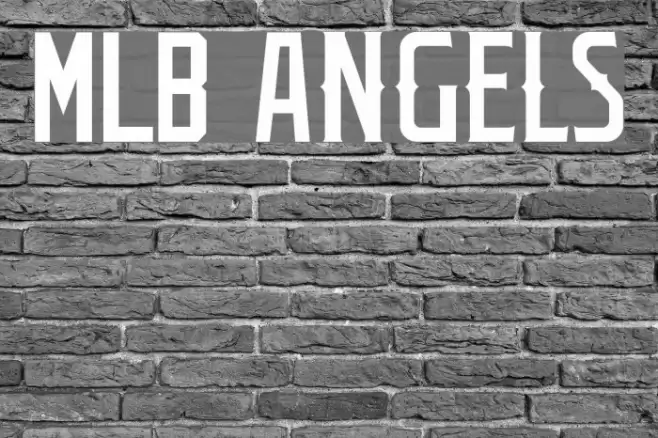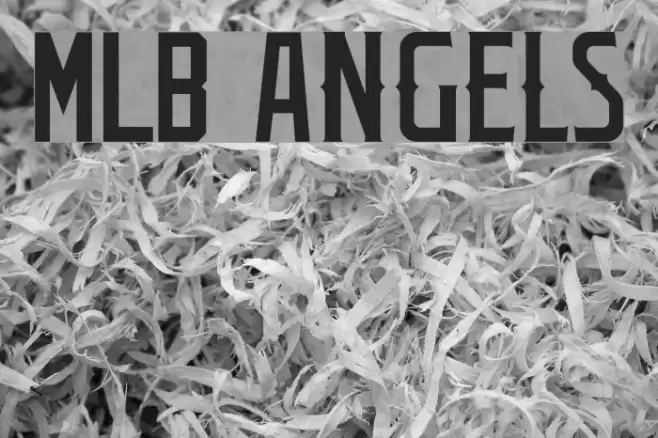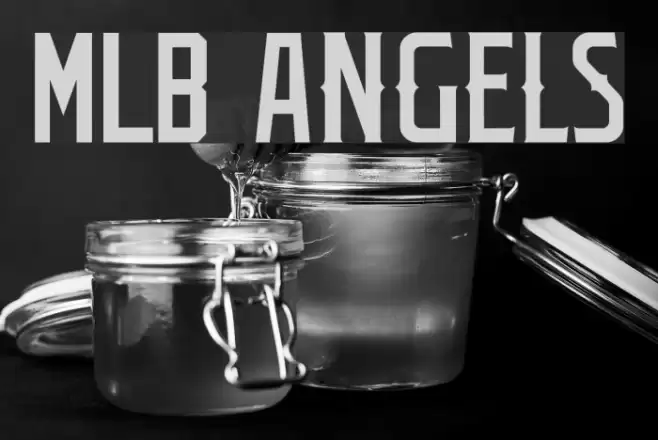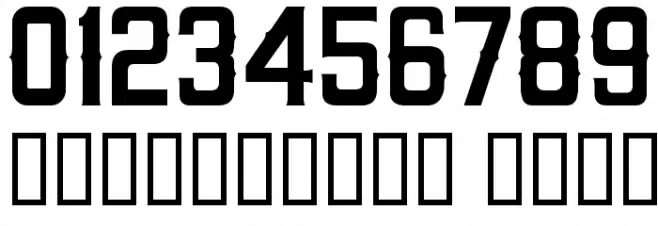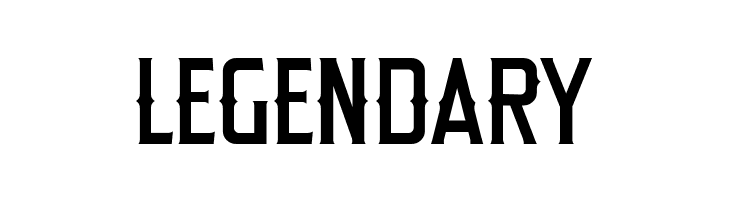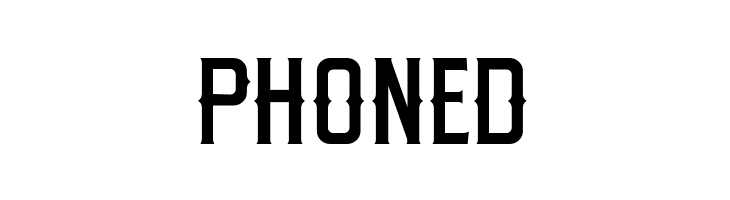
MLB Angels Font
MLB Angels Description
This font features a bold and striking design with a distinctly athletic and collegiate feel. The uppercase letters are tall and narrow, with sharp angles and clean lines that convey a sense of strength and precision. The numbers are similarly styled, maintaining the boldness and clarity necessary for visibility. The font's geometric structure and uniform stroke width give it a modern and professional appearance, making it ideal for sports-related designs. The characters are tightly spaced, enhancing the compact and impactful look. Overall, this font exudes energy and dynamism, perfect for capturing attention.
A bold, athletic font with sharp angles and a modern, professional appearance from Uncategorized fonts.
- Proposed Projects: Ideal for sports team branding, athletic apparel, event posters, and dynamic logo designs.
- Character Spacing: Tight
- Use Case: Logos, Headlines